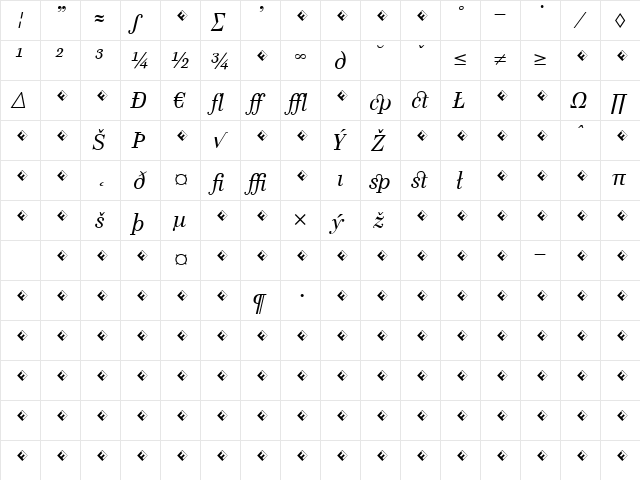
Cellini-RegularItalicExpert Regular
| Foundry | Albert Boton, published by FontShop International for the FontFont Library |
| Designer | Albert Boton |
Design Context for Cellini-RegularItalicExpert Typeface
Cellini-RegularItalicExpert is a composed and adaptable typeface that performs quietly and consistently across a wide range of design contexts. The dynamic lean of this cut emphasises speed and emphasis in any layout.
Pro Tip: Use Cellini-RegularItalicExpert for emphasis, pull quotes, and subheadings where its slanted energy can add rhythm to the layout.